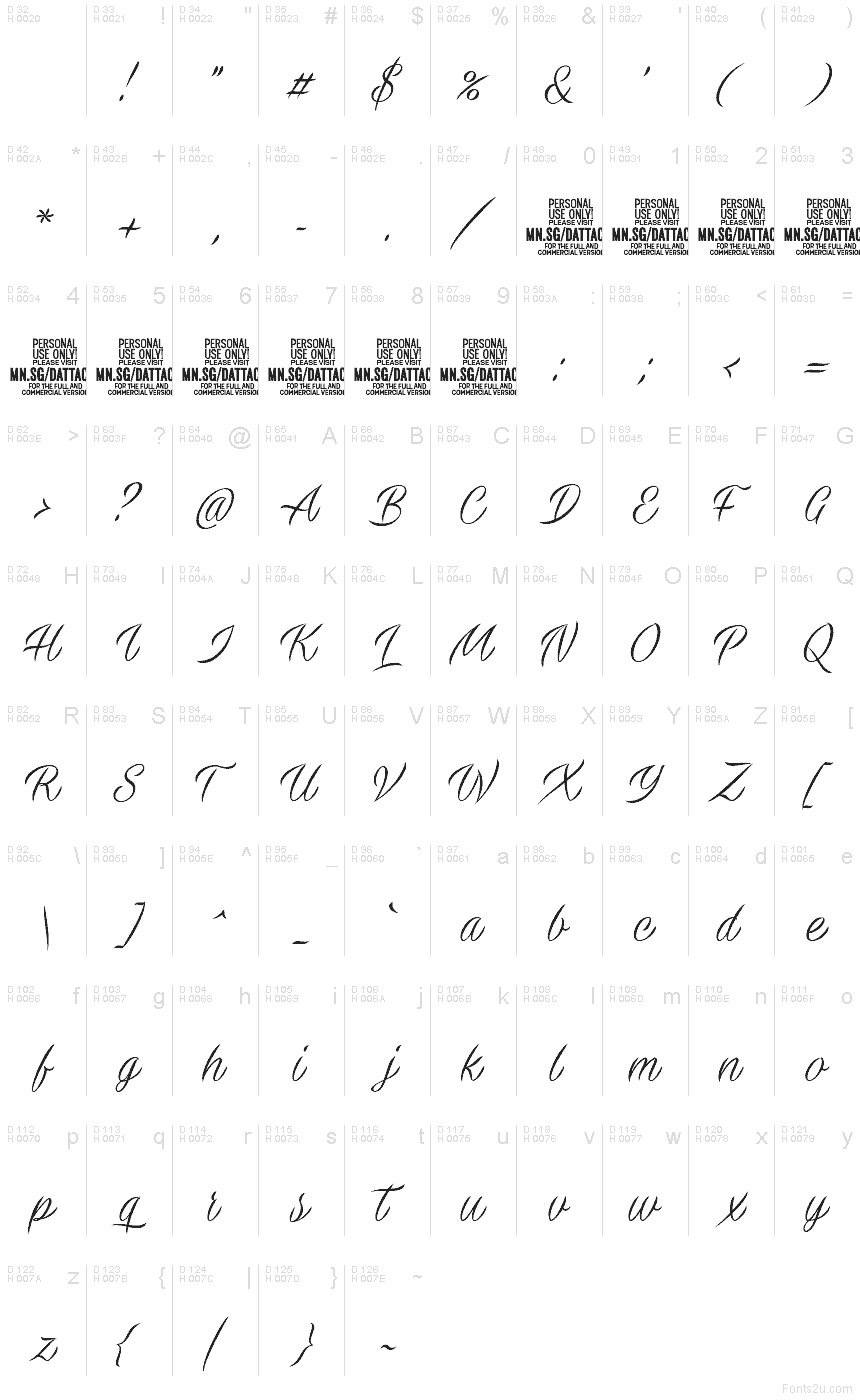
Dattacle Thin PERSONAL USE Regular
Dattacle Thin font by Mans Greback is a free brush script typeface in the Dattacle family. Its signature move is the razor-fine, blade-like strokes that sweep and snap with tattoo-script swagger, then soften into smooth, modern brush curves. The rhythm feels quick and elegant, like wet ink pulled in one confident motion, giving words a lustrous, hand-inked sheen without heaviness.
Using Dattacle Thin, your text gains a sleek, showpiece signature quality that shines on logos, barbershop or salon branding, packaging, poster titles, event invitations, social banners, and merch. This free font rewards generous scale and close, intentional spacing; pair it with a plain grotesque sans to keep the spotlight on the script’s glide and sparkle.